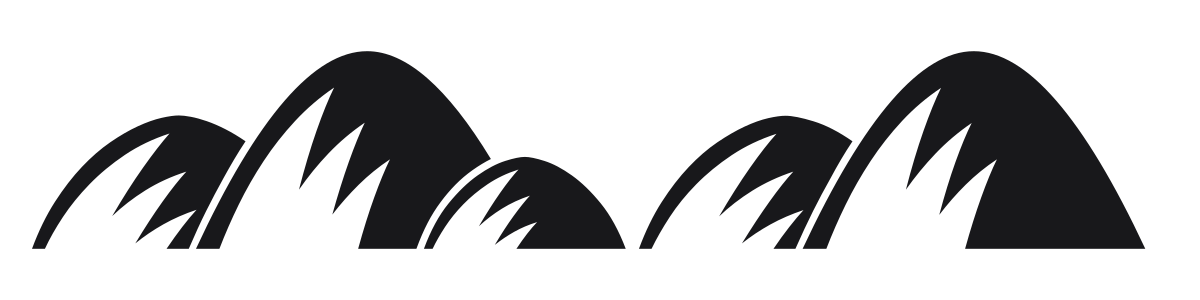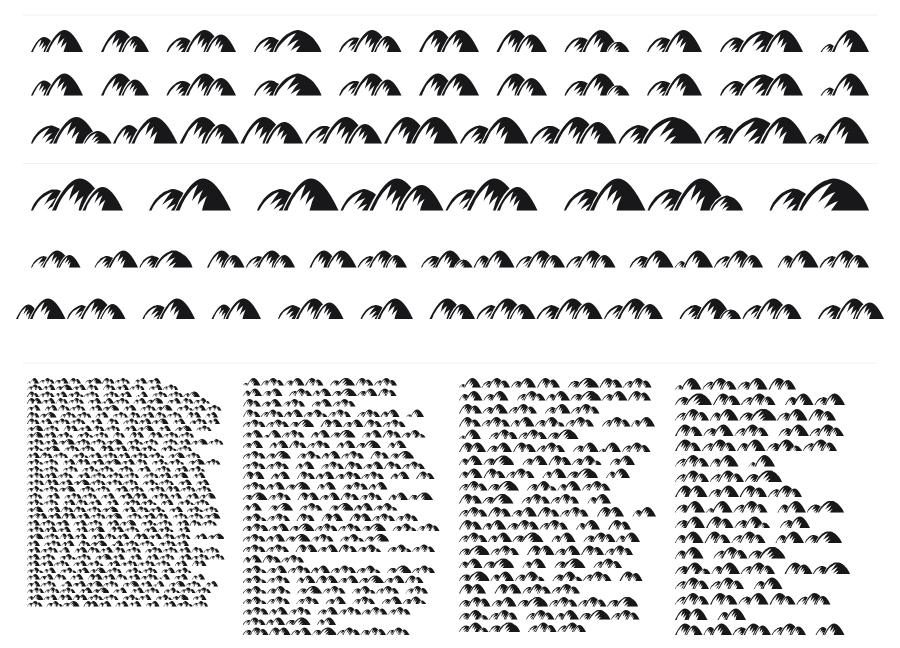
Hills
Hills is a dingbat font by Vladimir Nikolic featuring a varied set of solid black hill and mountain silhouettes. Each glyph offers a different landscape profile, from jagged rocky peaks to smooth grassy mounds, making it easy to compose repeating borders or terrain decorations. Useful for map illustrations, game assets, editorial decoration, and outdoor-themed design work.